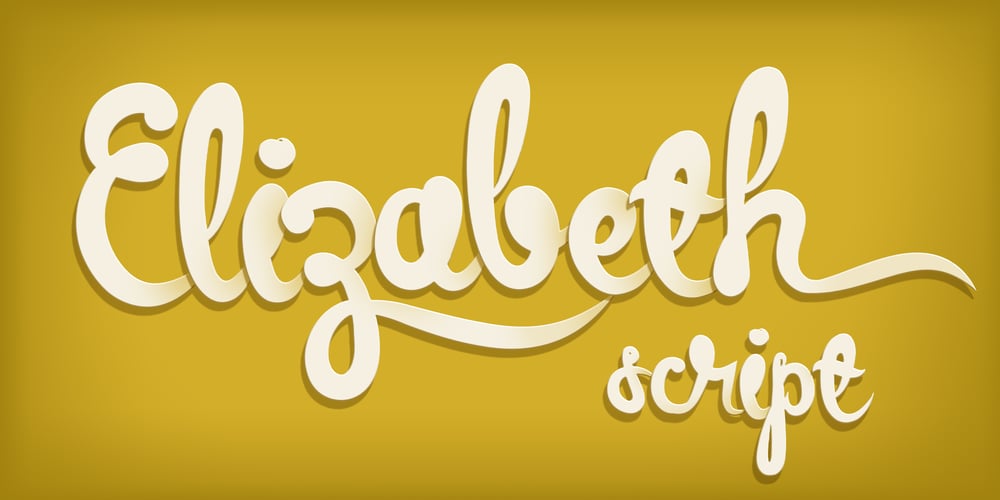
Elizabeth Script Font Family was designed by Kimmy Kirkwood and published by Kimmy Design. Elizabeth Script contains 3 styles and family package options. Elizabeth a script that carries the imperfections of a hand written brush script. It includes regular and discretionary ligatures, as well as stylistic alternatives and swashes. If you are working in a program that supports Open Type, I would suggest purchasing the Pro version as it includes all the features Elizabeth has to offer. If you are not working with Open Type but want to have the option of the swashes are stylistic alternatives, then you can buy both the regular Elizabeth and the swashes version. It will allow you to have most of the functions of Open Type.